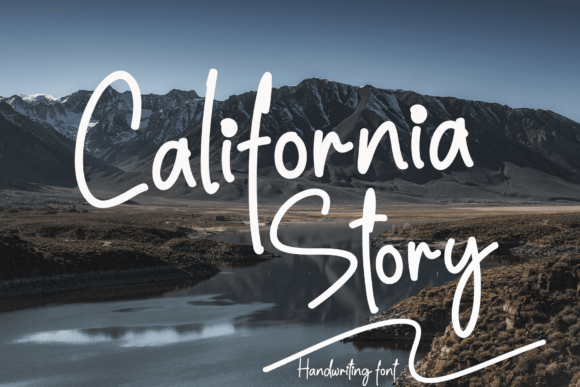
The Art of Storytelling in Design
As a designer, there’s nothing quite like the thrill of brainstorming a new project and watching it come to life. You’ve got a concept, a vision, and a blank canvas waiting to be filled with creativity. But sometimes, it’s the smallest details that can make all the difference between a good design and a great one. That’s where the California Story Font comes in – a sweet and beautiful handwritten font that’s sure to add a luxury spark to any project.
With its unique characters that dance along the baseline, the California Story Font is more than just a font – it’s a way to add personality and whimsy to your designs. Whether you’re working on a branding project, a wedding invitation, or a social media campaign, this font is the perfect way to bring your vision to life.
California Story Font Key Features
- Unique Characteristics: Features a unique, hand-drawn style with a distressed, vintage aesthetic.
- Kerning and Ligatures: Includes advanced kerning and ligature features for improved text readability.
California Story Font Review
I’ve had the chance to work with the California Story Font, and I must say it’s a beautiful, nostalgic script font. ✨ One of its standout features is its organic feel, reminiscent of handwritten letters from the past. The subtle imperfections and fluid connections between letters make it perfect for creating a sense of warmth and personality in your designs.
Another aspect that works well is its versatility. ✨ The font comes in a range of weights and styles, making it suitable for everything from elegant invitations to casual social media posts. I’ve also found it pairs well with sans-serif fonts, creating a nice balance between modern and traditional elements.
- ⚠️ Limited legibility at small font sizes: The California Story Font is best suited for larger font sizes, as its intricate details and connections between letters can become difficult to read at smaller sizes.
- ⚠️ Not ideal for body text: While the font is great for headings and titles, its aesthetic may not be suitable for large blocks of body text, where readability is crucial.
Overall, the California Story Font is a beautiful addition to any designer’s toolkit. While it has its limitations, it’s perfect for creating eye-catching headings, titles, and social media posts that exude a sense of nostalgia and personality.
California Story Font: A Practical Application Guide
Tips for Getting the Most Out of the California Story Font
Here are some tips to get the most out of the California Story Font:
1. Use it for headings and titles to add a touch of elegance to your design.
2. Pair it with other fonts to create a unique and visually appealing typography.
3. Use it in a mix of uppercase and lowercase letters to add a sense of playfulness to your design.
The California Story Font is ideal for:
1. Designing wedding invitations and stationery.
2. Creating brochures and flyers for events and promotions.
3. Developing brand identities and logos.